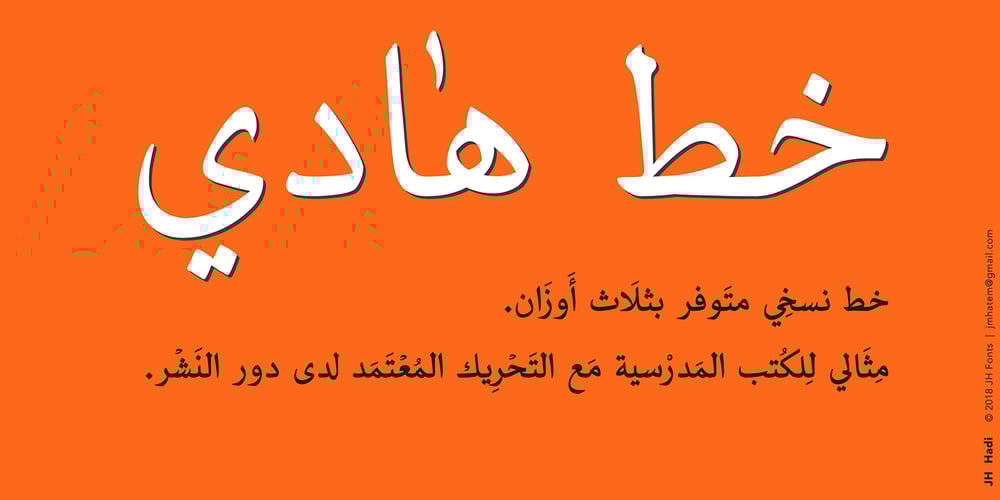
JH Hadi
JH Hadi font
JH Hadi Font Family was designed by Joe Hatem and published by JH Fonts. JH Hadi contains 3 styles and family package options. JH Hadi is an Arabic Naskh typeface, including three weights; it is typical for long running text, headlines, branding & signage… The diacritic positioning is fine tuned per the publishers requirements.